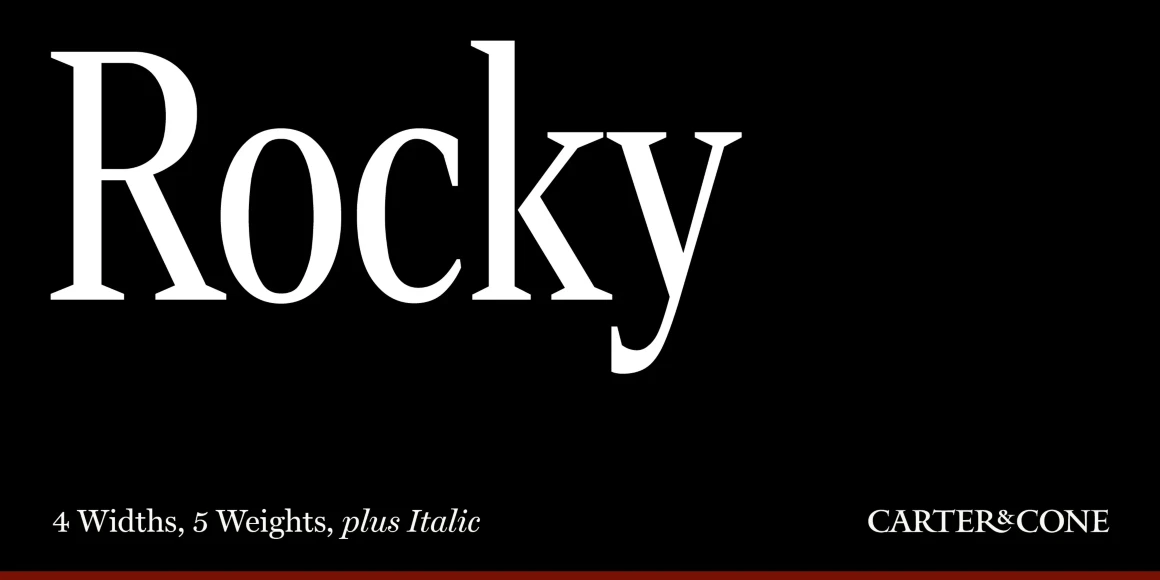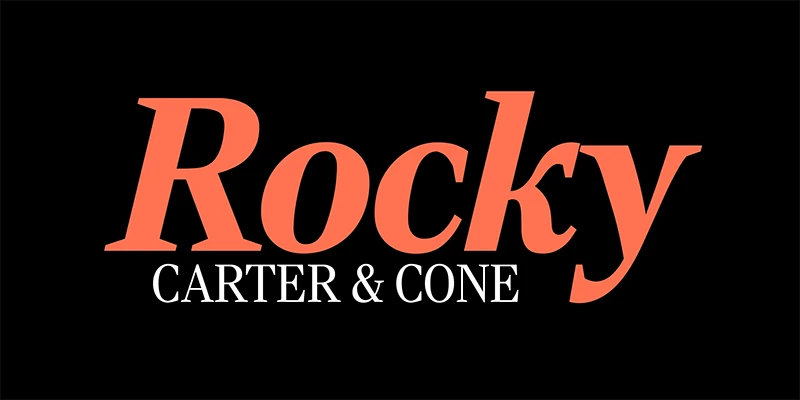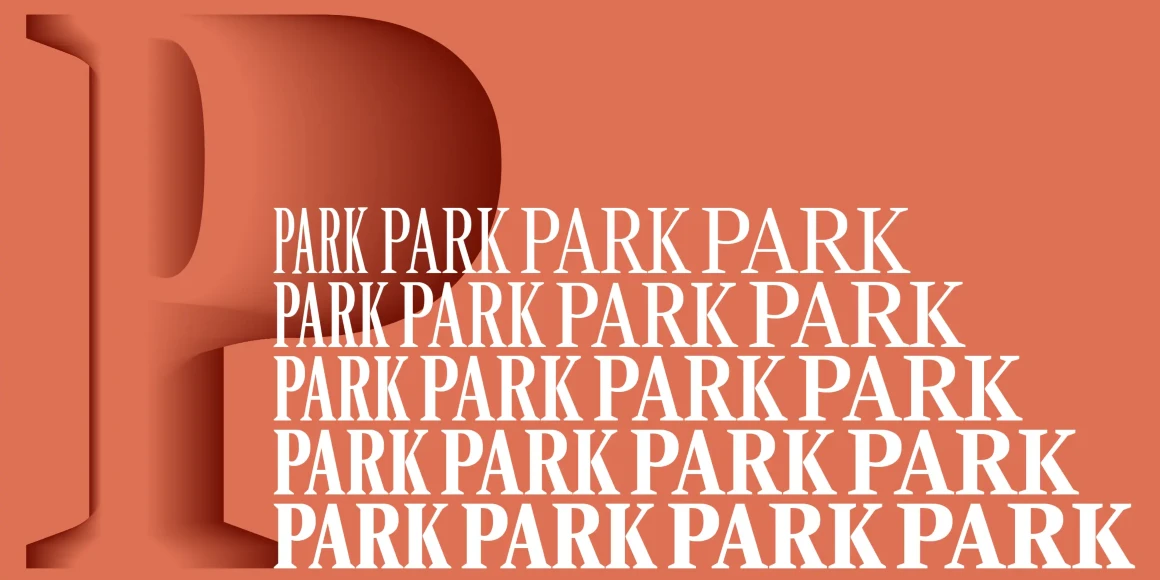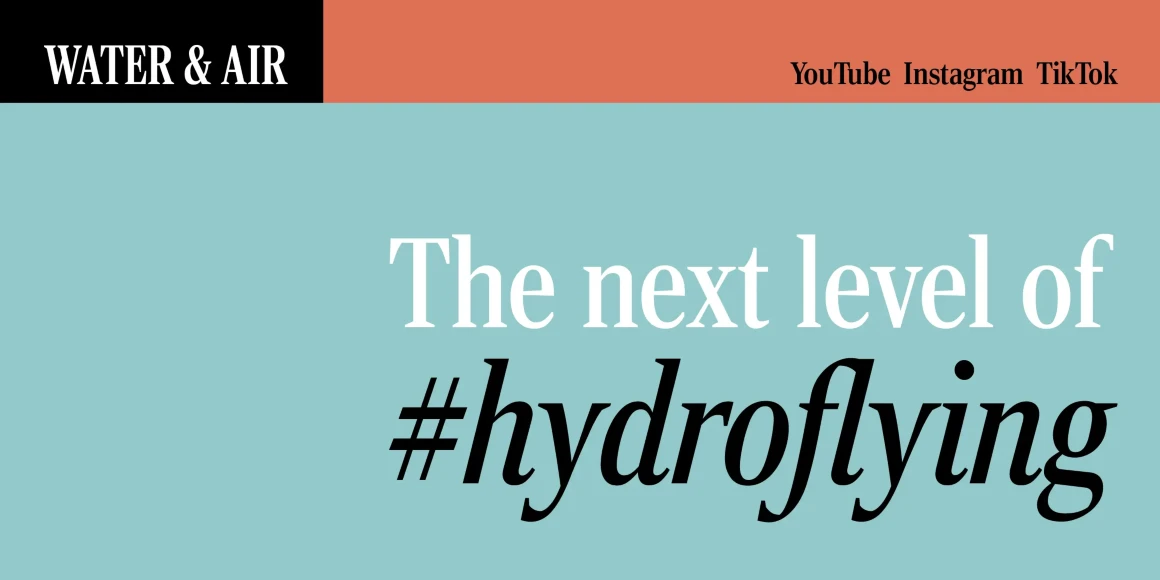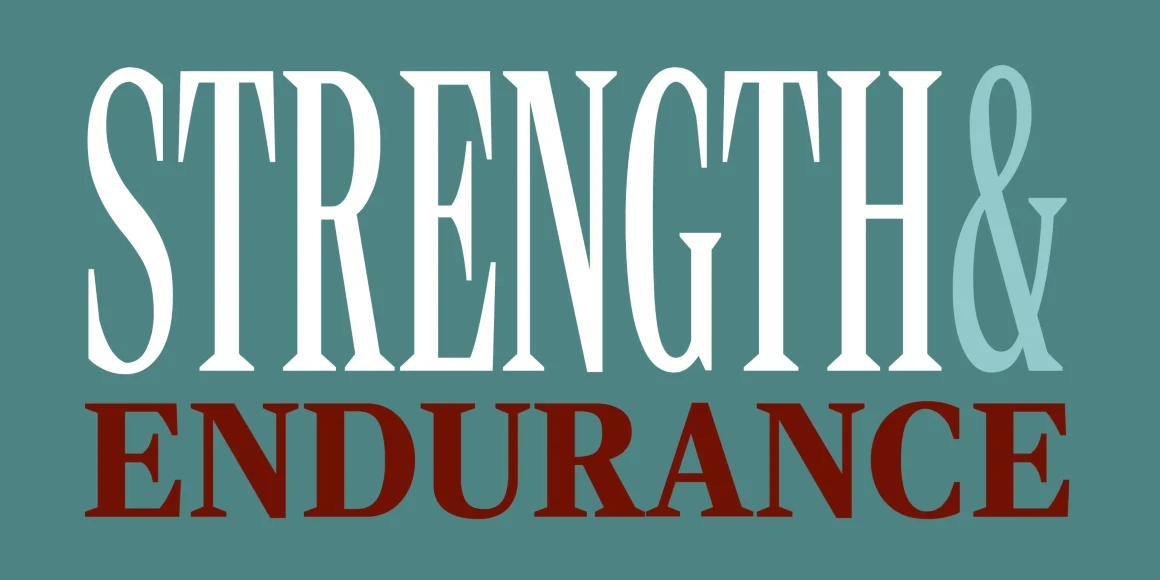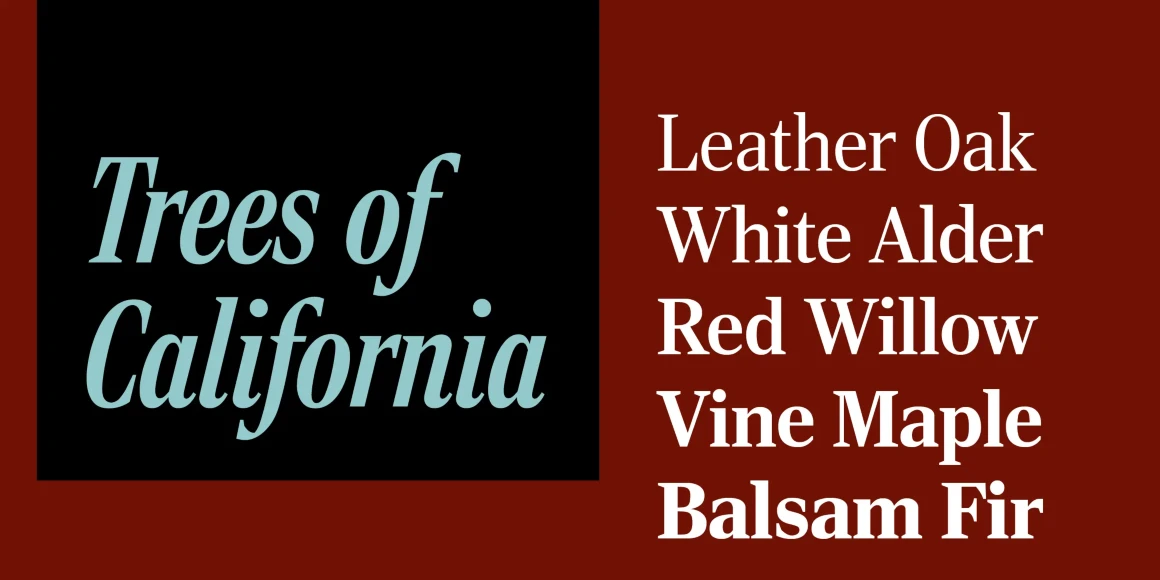
Rocky
From Carter & Cone
For years, Matthew Carter wondered why no Latins with Bodoni proportions had been developed, or there were no Bodonis with Latin serifs. He answered this by drawing Rocky Regular and Bold, with Italics, then expanded the family with the aid of Richard Lipton. Rocky can deftly add color to any book, magazine, or website needing typographic sparkle. Carter & Cone’s Rocky is available in 4 widths and 5 weights, plus italics, giving you 40 different ways to add visual punch to your projects.
Designed by Matthew Carter & Richard Lipton